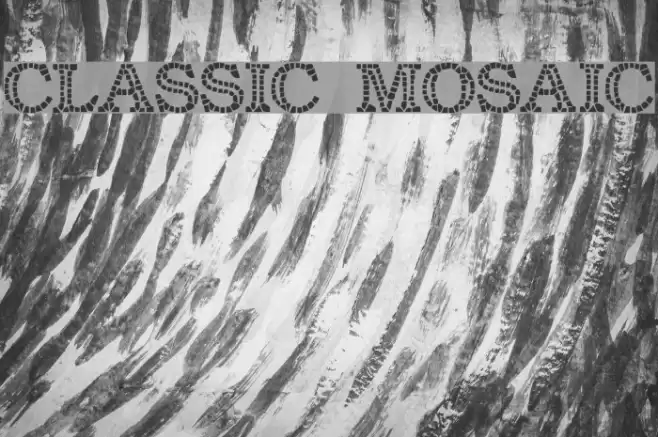
Classic Mosaic Font
Classic Mosaic Description
This font features a unique mosaic pattern, where each character is composed of small, tile-like shapes that create a textured and intricate appearance. The design is bold and eye-catching, making it ideal for decorative purposes. The uppercase and lowercase letters maintain a consistent style, with a uniform distribution of the mosaic elements. Numbers and special characters are also included, each following the same artistic pattern. The overall look is both modern and artistic, offering a distinctive visual appeal.
A bold, mosaic-patterned font with a decorative and artistic style from Decorative fonts.